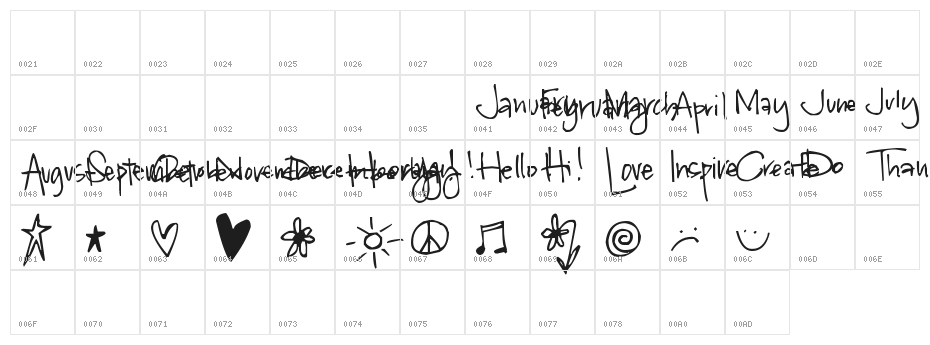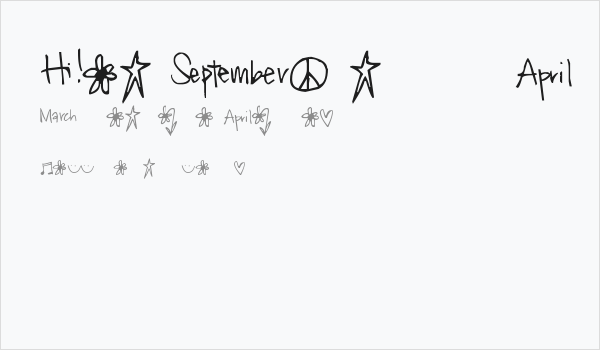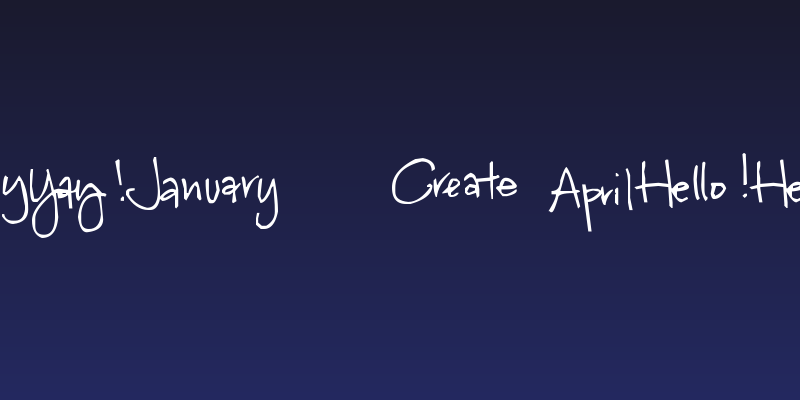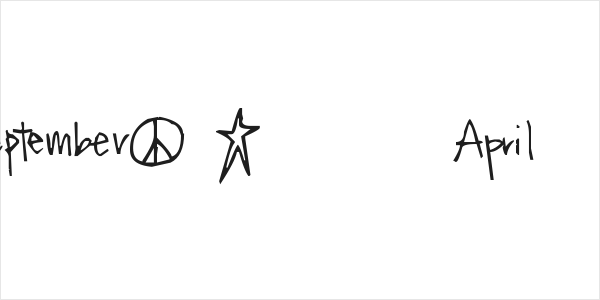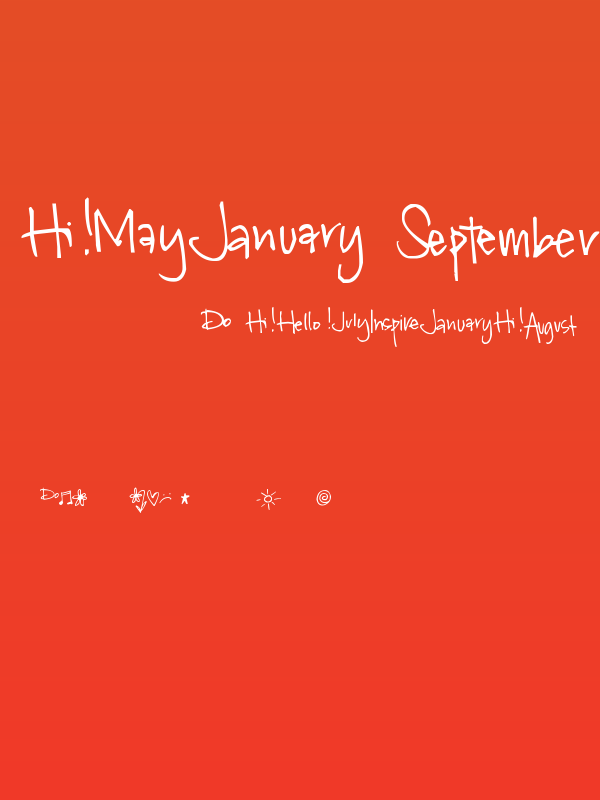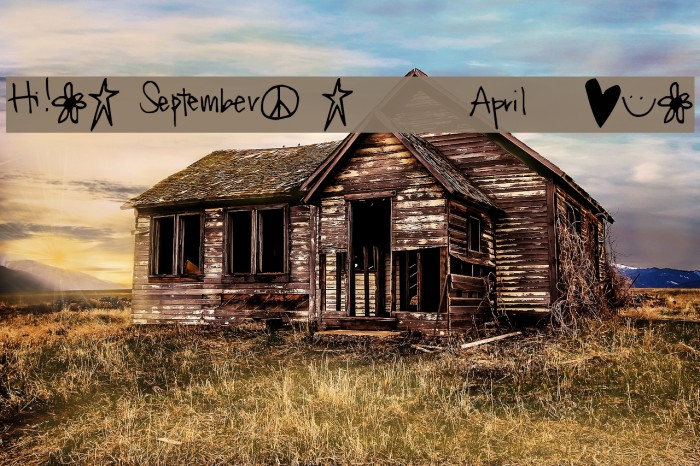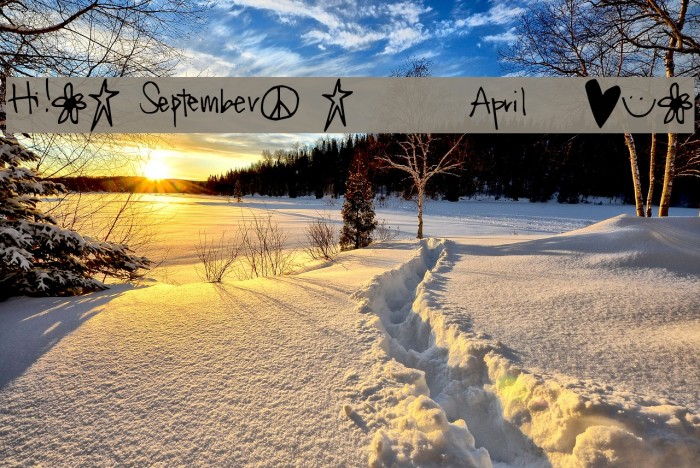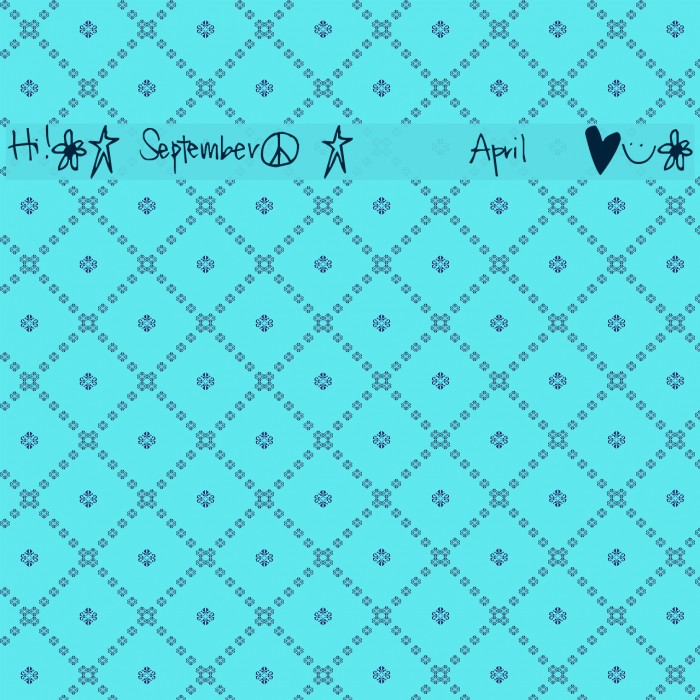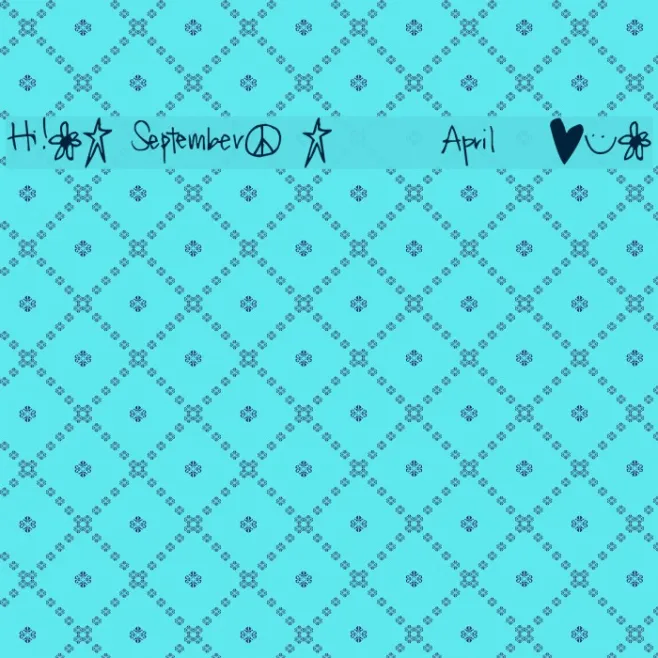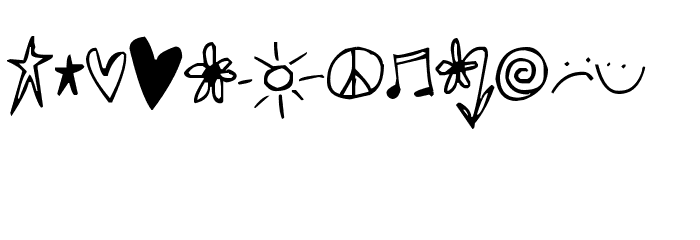
Pea Igna's Doodles Font
Pea Igna's Doodles Description
This playful and whimsical font features a handwritten style with a casual and friendly appearance. The letters are slightly irregular, giving it a personal touch, as if each character was drawn by hand. The font includes a variety of doodle-like symbols, such as stars, hearts, flowers, and musical notes, adding to its creative and artistic flair. The strokes are varied, with some lines being thicker and others thinner, contributing to a dynamic and lively look. This font is perfect for projects that require a fun and informal vibe, such as greeting cards, children's books, or creative posters.
| Overall Style | Whimsical |
| Use Case | Creative projects, informal designs, playful themes. |
| Proposed Projects | Ideal for greeting cards, children's books, creative posters, and informal invitations. |